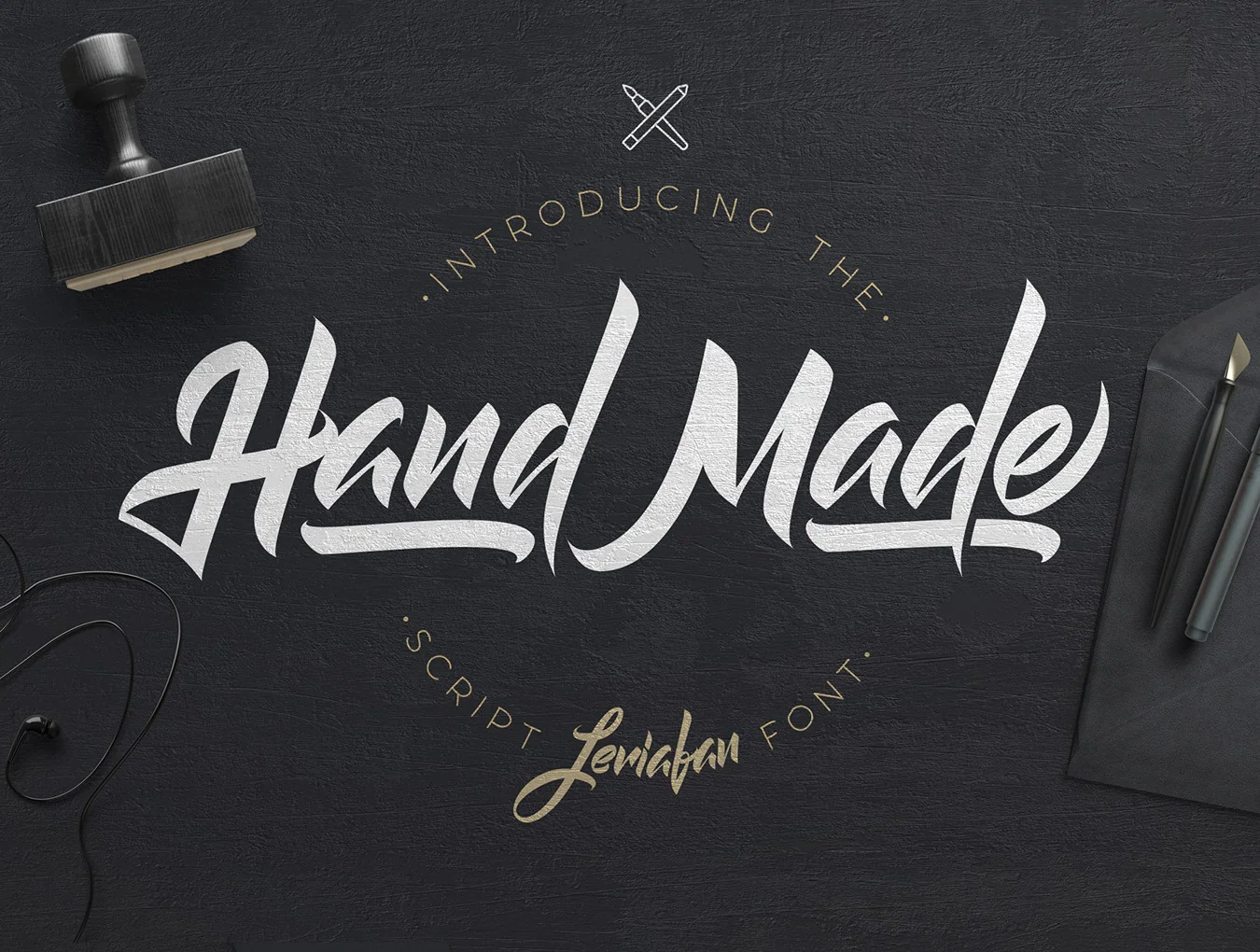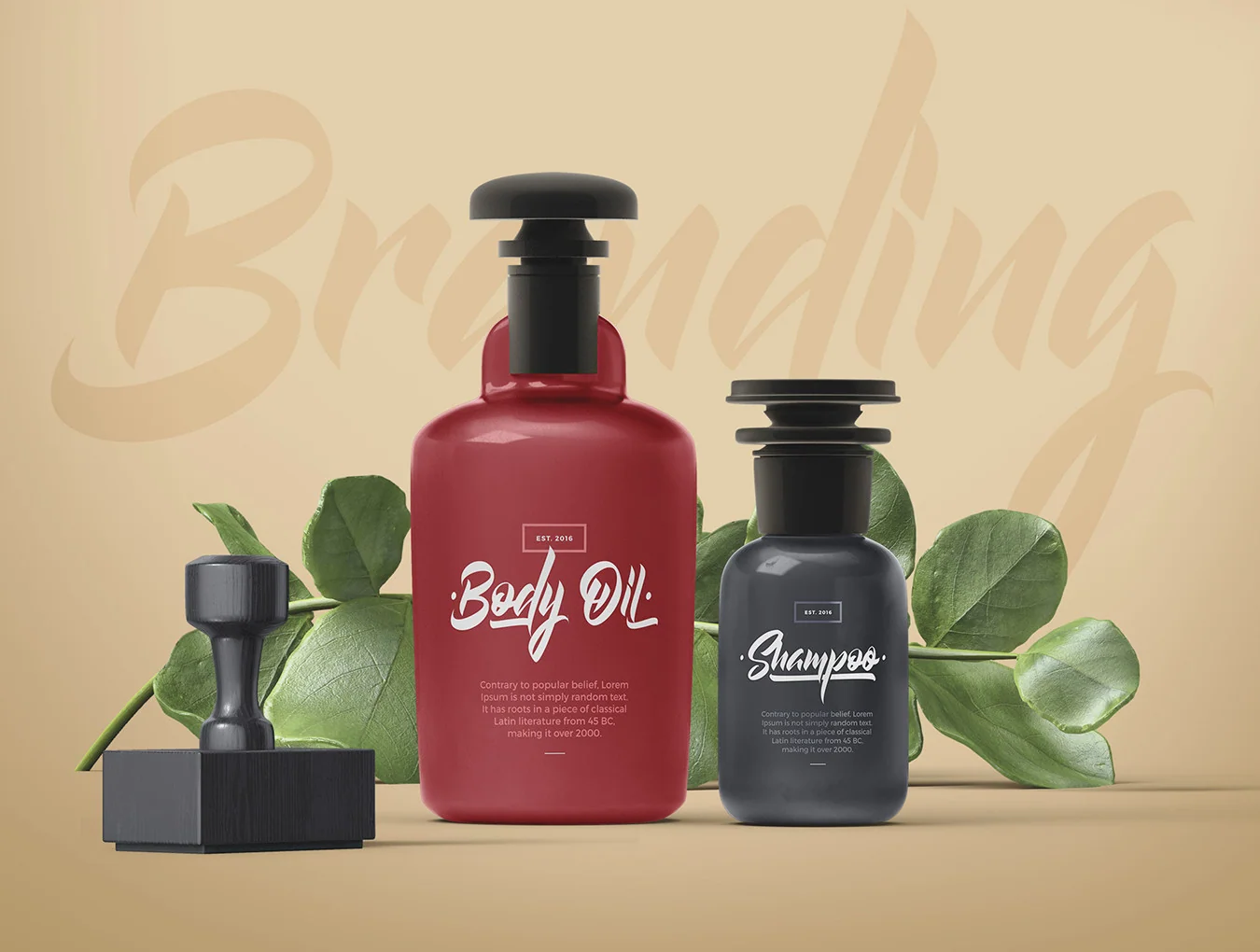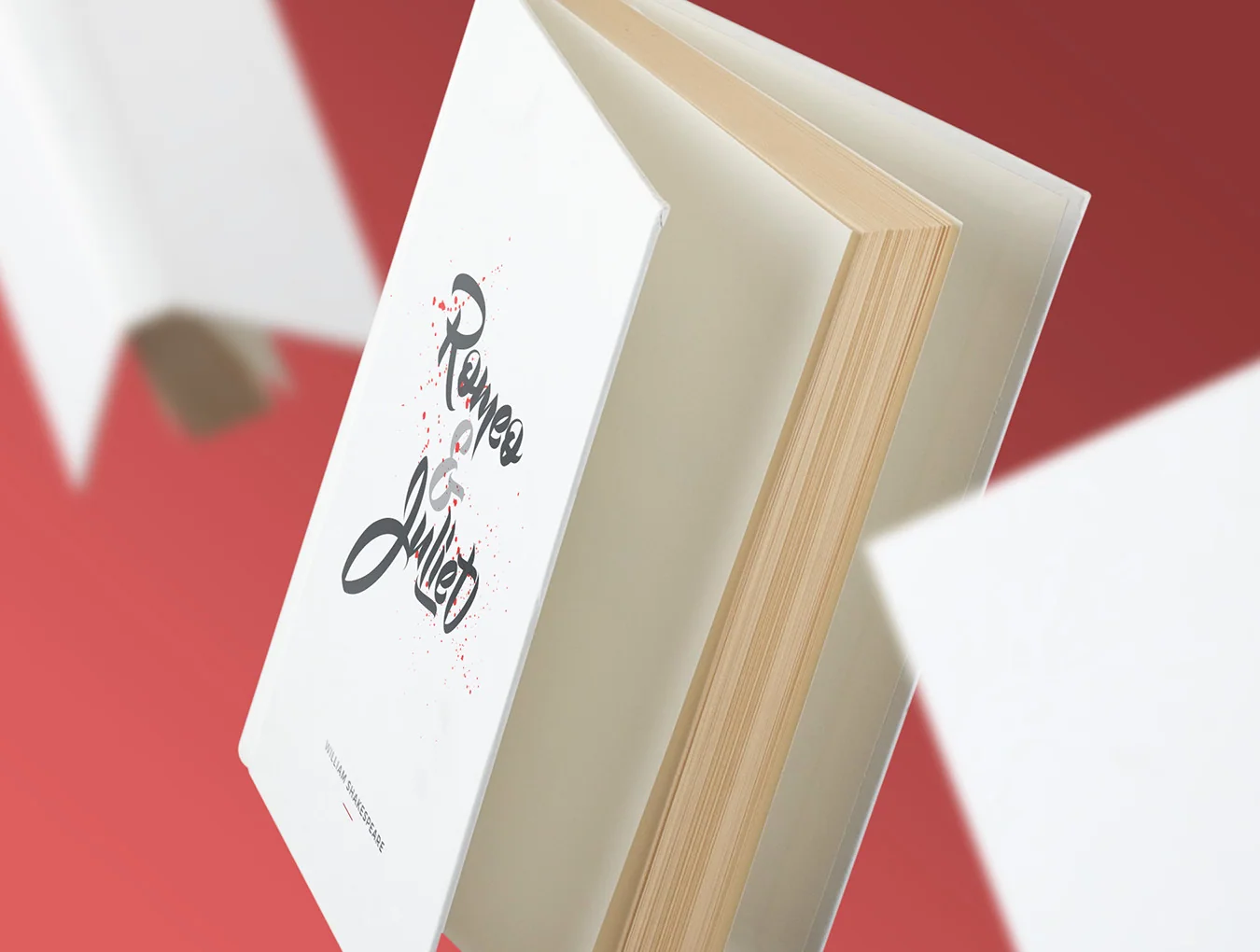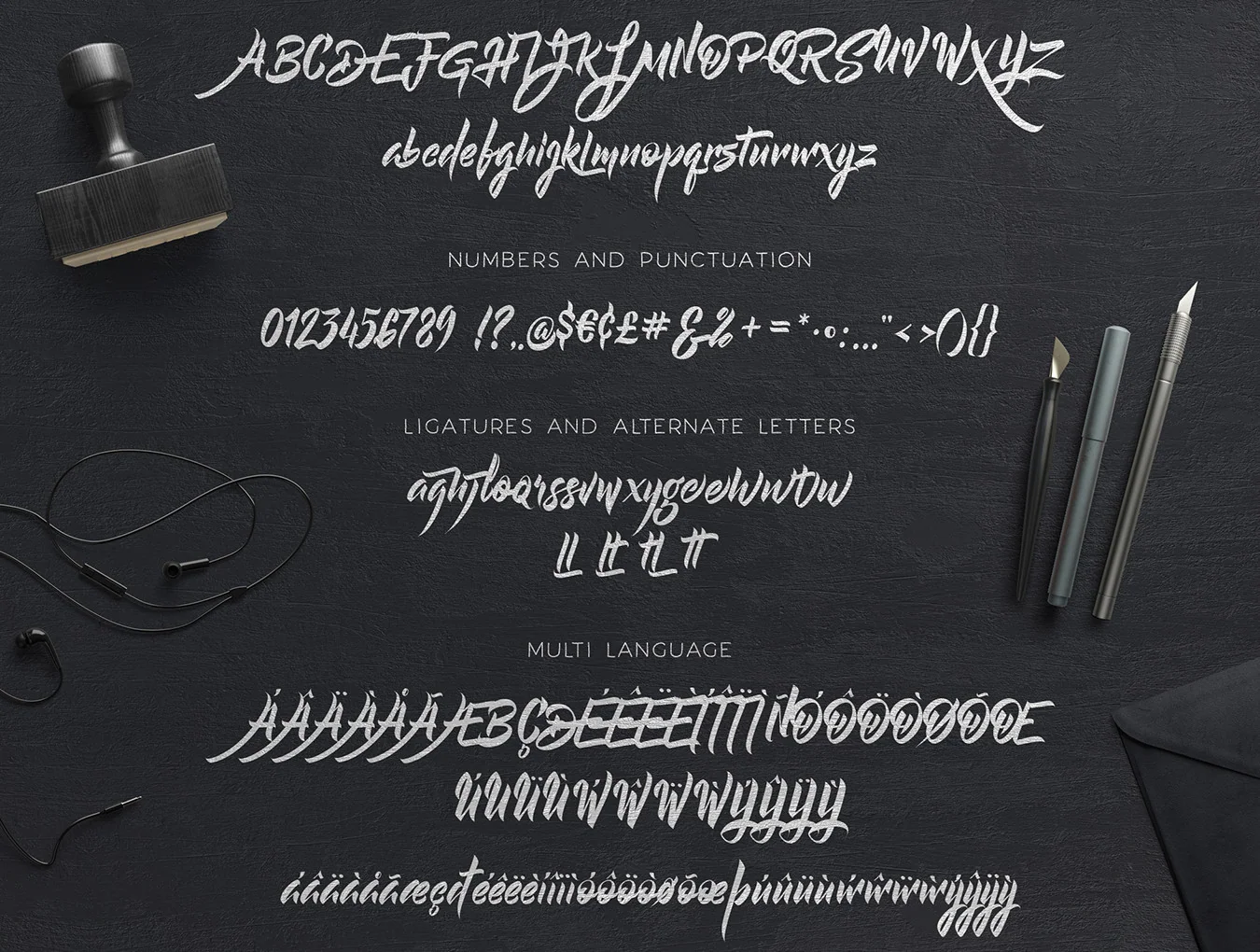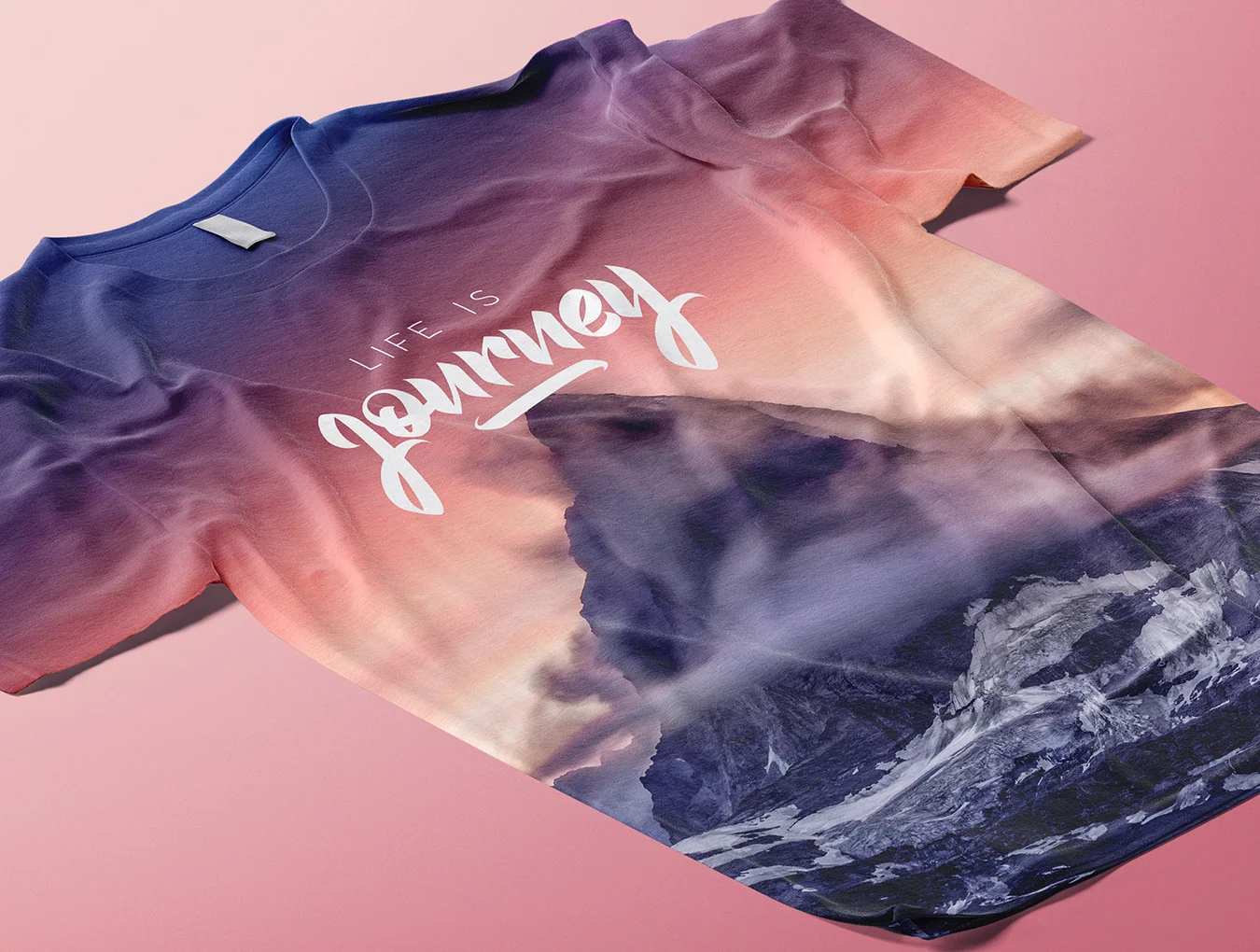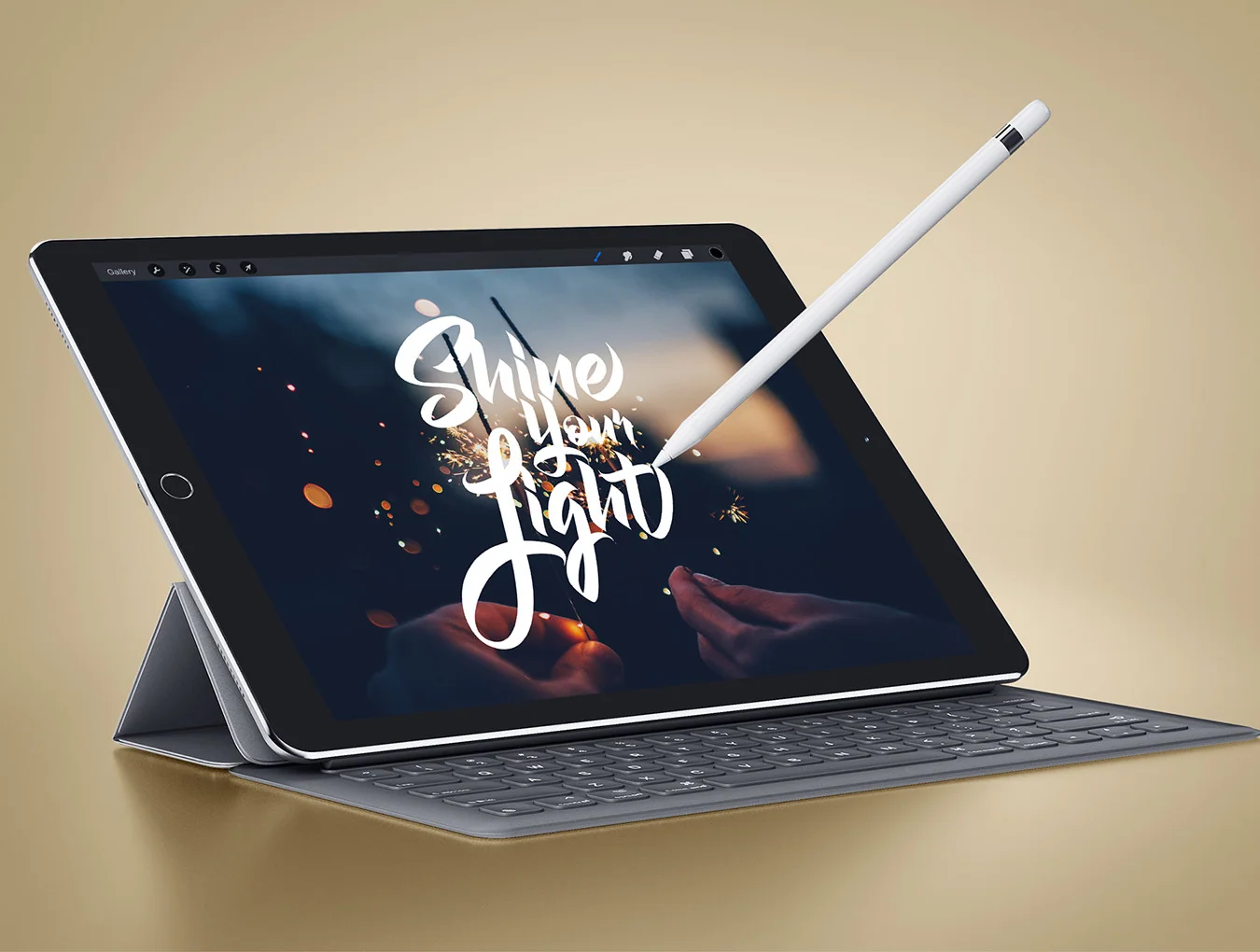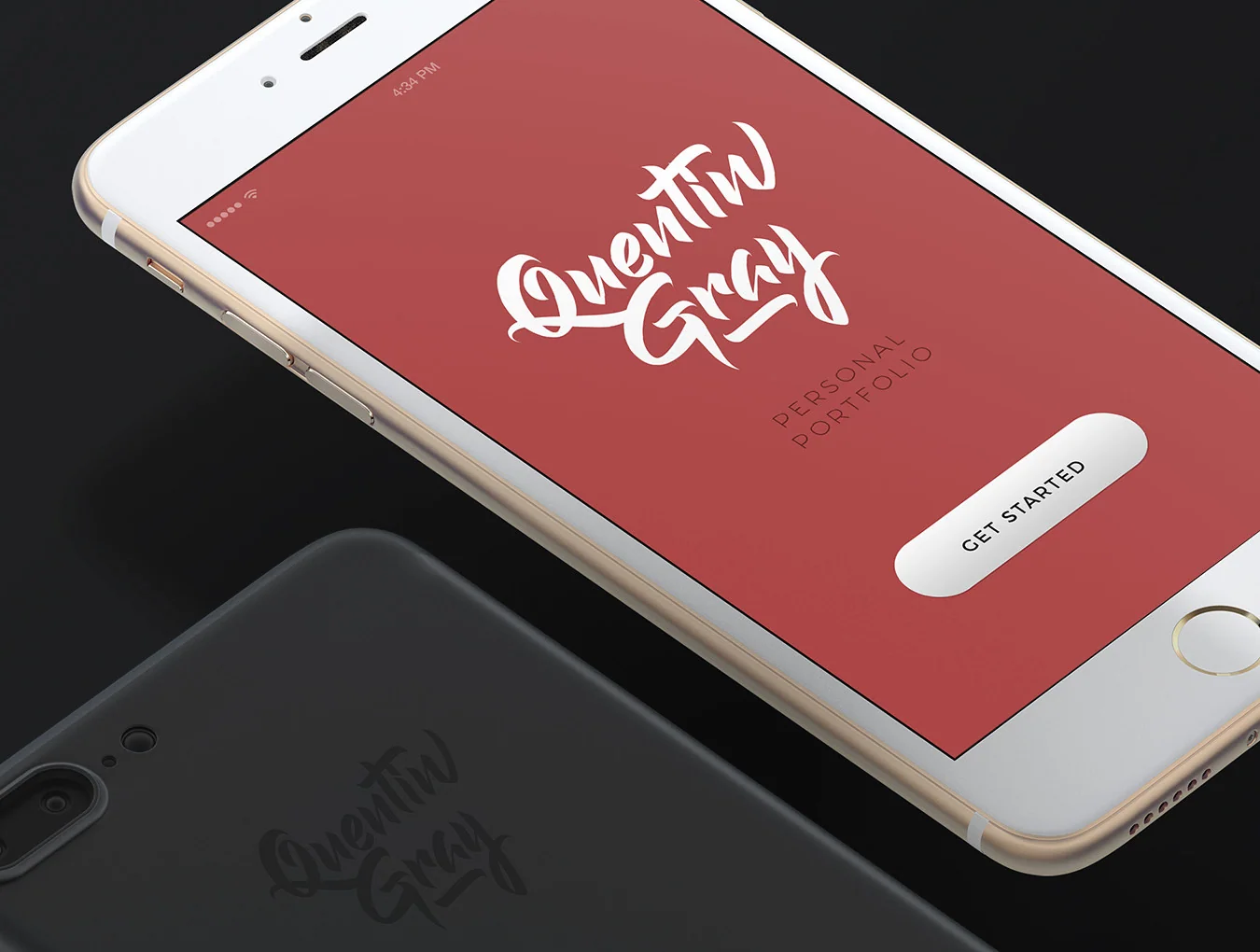
Leviafan Font
Ideal brush-style typeface made for you!
Capital and small letterforms
Numerals with punctuation marks
Ligature options and alternate glyphs
Leviafan is a brush-inspired hand-lettered font suited to letterheads, clothing graphics, headlines, logos, posters, cards, and more. OpenType alternates can be used through Stylistic Alternates and Ligatures in Photoshop or any app with a glyph panel, such as Illustrator, Photoshop, or Inkscape. Matching TTF files are also included.